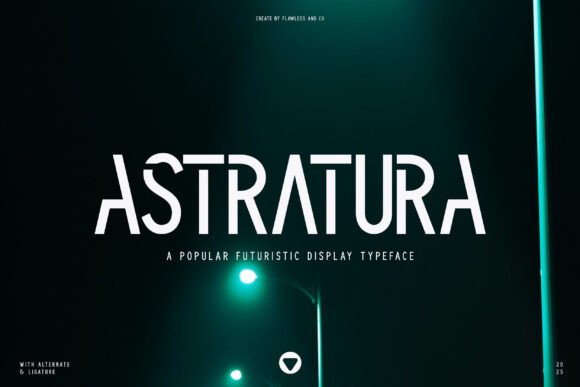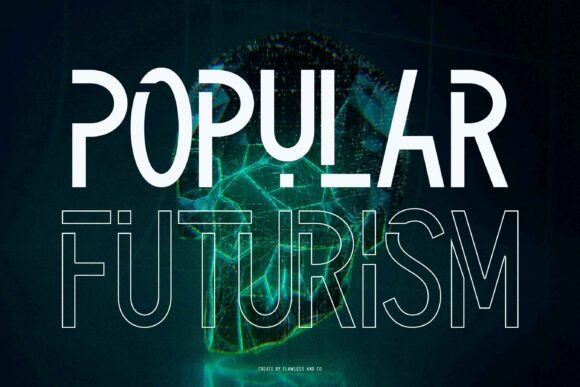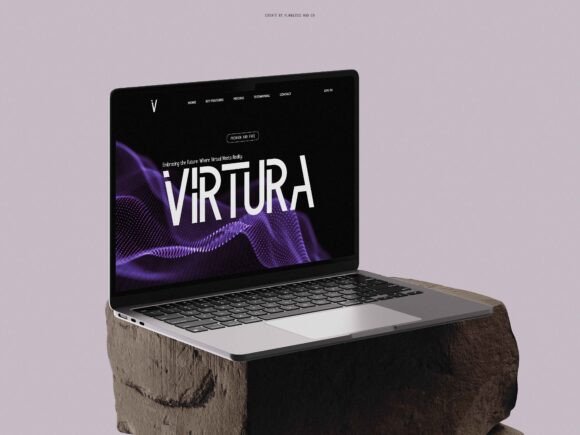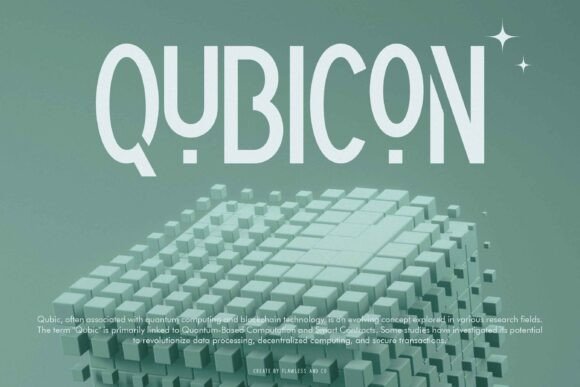
Astratura Font: Modern Typography for Sci-Fi Branding & Logo Design
About the Astratura Font
The Astratura Font is here to transform your projects with its distinctive character and style. Astratura is a futuristic font that blends sleek, modern aesthetics with a cutting-edge design. Its bold structure and sharp edges make it perfect for technology branding, sci-fi movie titles, gaming interfaces, space-themed projects, futuristic posters, and digital designs. Let your creativity reach the future with Astratura.
Astratura’s strong geometric forms excel in large-scale applications like headlines, logos, and posters where its bold presence commands attention. It is less suitable for body text or lengthy paragraphs due to its weight and potentially low readability at smaller sizes. Avoid using it in user interfaces requiring high legibility.
Its futuristic personality pairs well with clean sans-serif fonts like Open Sans for body copy, creating a balanced contrast between modern styles. For a more luxurious feel, consider pairing it with a subtle serif like Garamond for supporting text, juxtaposing the sharp geometry with classic elegance. Avoid pairing it with other similarly heavy or geometric fonts to prevent visual overload.
Astratura projects a bold, futuristic, and assertive personality, ideal for brands emphasizing innovation, technology, or science fiction themes. Its strong visual impact makes it a powerful tool for conveying a sense of cutting-edge advancement.